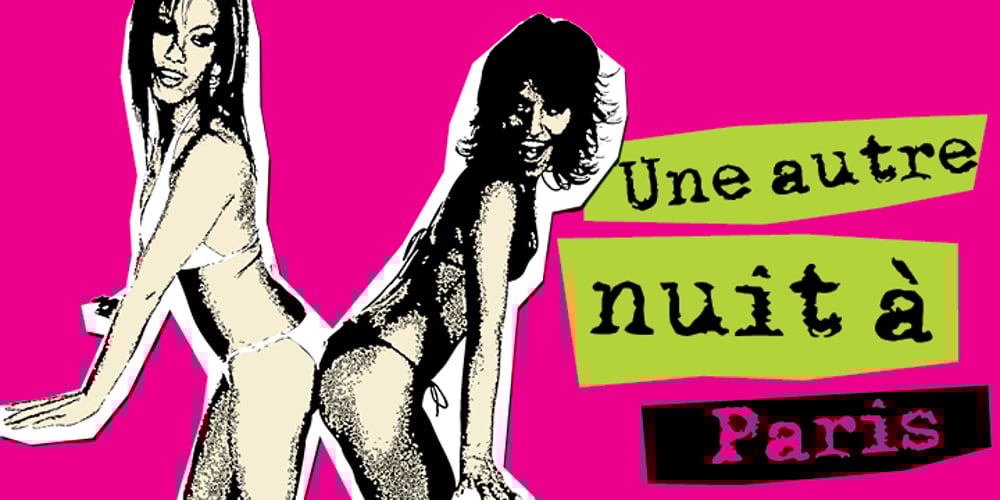
Fille De Joie
Fille De Joie font
Fille De Joie Font Family was designed by Michael Tension and published by Tension Type. Fille De Joie contains 1 styles and family package options. Fille de Joie is a distressed typewriter font created from a vintage typewriter that a friend of mine bought in Paris. It’s pretty dirty and nasty. Included are open type ligatures for all of the double letters like “EE” “TT” “FF” etc. to give the font a more natural look.